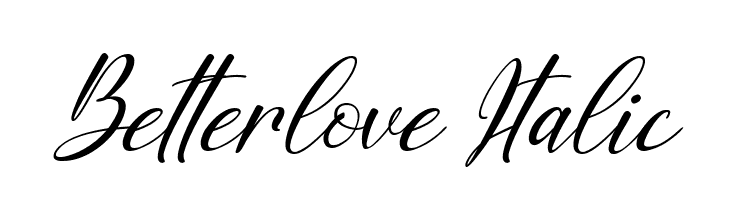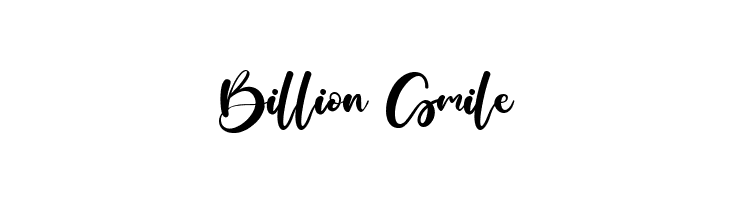
A bold, handwritten font with a dynamic and casual style.
A bold, italic, handwritten font with dynamic and energetic style.
A lively and flowing script font with elegant curves and a handwritten feel.
A playful, hand-drawn font with a textured, artistic style.
A flowing, elegant script font with a natural handwriting style.
A bold, geometric font with a futuristic and edgy design.
A bold, geometric font with a futuristic and digital aesthetic.
A bold, distressed font with a gritty, textured appearance reminiscent of graffiti.
Bold handwritten font with a playful style.
A dynamic handwritten font with fluid strokes and a modern feel.
A dynamic, handwritten font with expressive curves and fluid strokes.
A bold, geometric font with thick strokes and a modern, impactful style.
A bold, expressive handwritten font with fluid strokes and a brush-like texture.
A bold, rounded font with a playful and modern style.
A bold, italicized font with rounded edges and a playful, modern style.
A playful, rounded italic font with bold, smooth characters.
A modern, hollow outlined font with rounded characters and consistent line thickness.
A modern, hollow, outlined font with smooth, rounded edges.
A bold, modern font with rounded edges and geometric style.
A delicate, flowing script font with elegant, interconnected strokes.
A bold, geometric font with high contrast and unique cutout designs.
A playful, outlined font with a hand-drawn, whimsical style.
A playful, bunny-eared decorative font with bold, rounded characters.
A bold, playful font with rounded, bubbly characters and a whimsical style.
A modern, geometric font with clean lines and consistent stroke width.
A bold, italicized font with a dynamic and modern style.
A bold, italic font with a dynamic and condensed style.
A bold, italic, and condensed font with a modern and dynamic style.
A bold, italicized font with a dynamic and modern appearance.